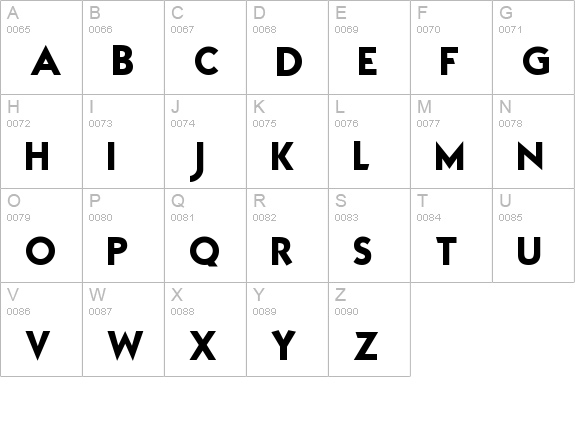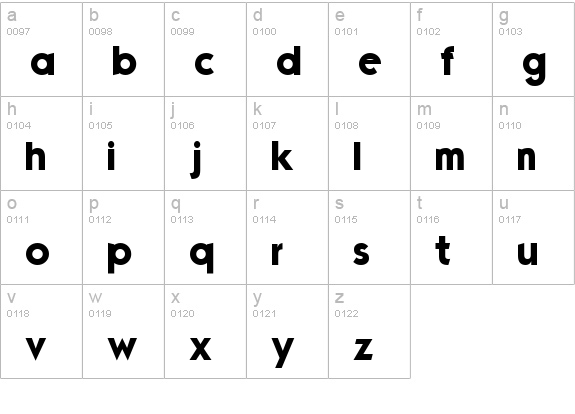
Mouser Font Details
Introducing Mouser font, a captivating and versatile typeface that effortlessly combines elegance with a touch of playfulness. Crafted with meticulous attention to detail, Mouser font is perfect for adding a unique and stylish flair to any design project. With its sleek lines and balanced proportions, Mouser font exudes a sense of modern sophistication. Its carefully crafted letterforms are both legible and eye-catching, making it an ideal choice for a wide range of applications, from branding and advertising to editorial design and beyond. But what truly sets Mouser font apart is its accessibility. As an advocate for creativity and inclusivity, Mouser font is freely available to download at FontsMarket.com. This means that designers, artists, and creatives of all backgrounds can easily access this stunning typeface and incorporate it into their work without any barriers. Whether you're designing a logo for a startup, creating an eye-catching poster, or giving your website a fresh new look, Mouser font's versatility and beauty will elevate your design to the next level. Its extensive character set includes uppercase and lowercase letters, numerals, punctuation marks, and a wide range of special characters, providing you with all the tools you need to unleash your creativity. So why wait? Unleash your imagination and create stunning designs with Mouser font. Download it for free at FontsMarket.com and embark on a journey of endless possibilities. Let Mouser font be your trusted companion in the world of design, helping you captivate your audience and make a lasting impression.